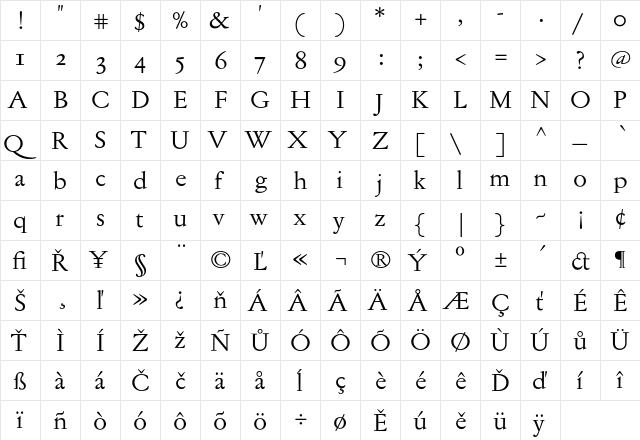
Jannon Text OSF Regular
Design Context for Jannon Text OSF Typeface
Jannon Text OSF takes a measured approach to typography — its balanced proportions and neutral character make it a reliable workhorse for both digital and print work.